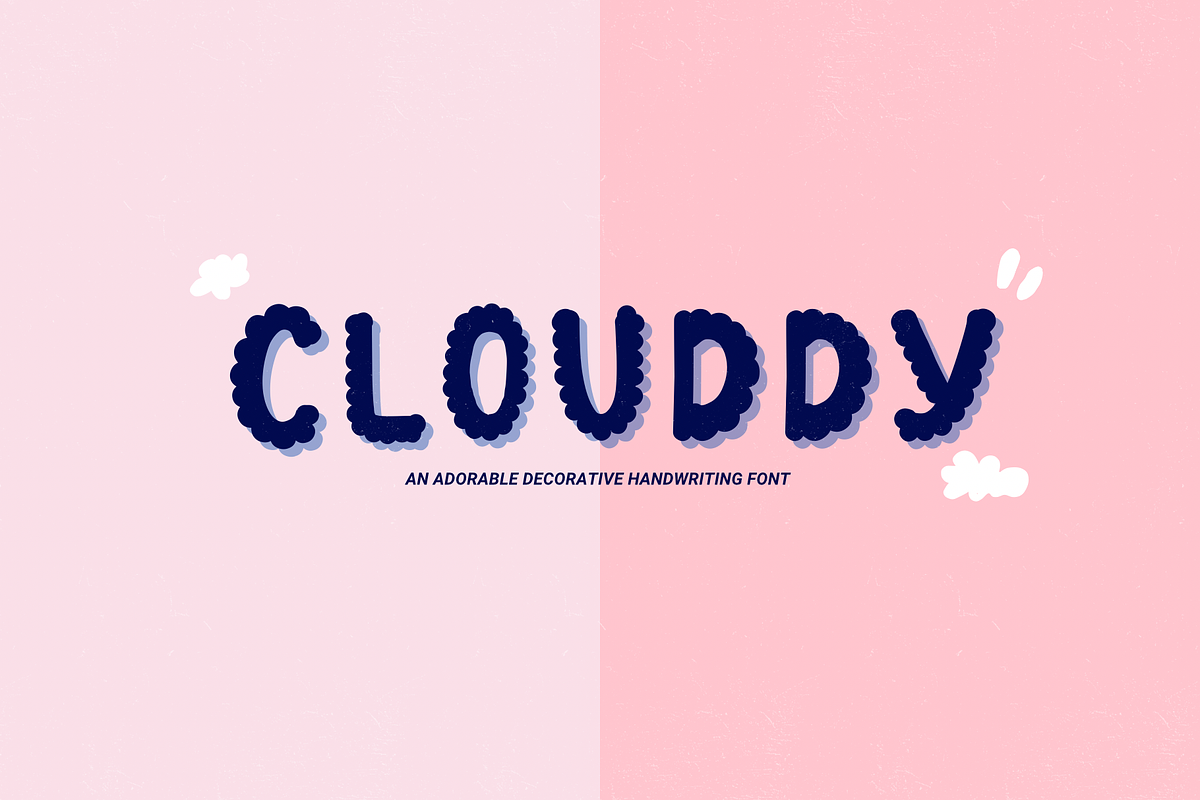
Clouddy Font Free Download is a soft, playful, and dreamy typeface that brings a sense of fun and imagination to your designs. With its rounded, bubbly letterforms and whimsical feel, Clouddy is perfect for children’s projects, storybooks, toy packaging, birthday invitations, nursery decor, and creative branding.
Its cloud-like shapes and cheerful personality make it ideal for designs that aim to feel lighthearted and approachable. Whether you're creating content for little ones or simply want to add a joyful vibe to your work, Clouddy delivers a charming and memorable look.